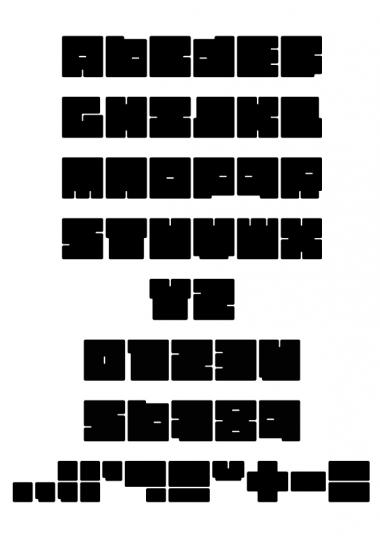
One of the most beautiful blocky fonts with rounded corners I have seen. And the symbols are simply awsome !
I tend to agree with neurone error: this is the best font of this kind we've seen around. It looks well thought out, very consistent, and legible. Fritz the Fat: I like the alliteration. 10/10
Fritz is something. nice minimal and effective design. and fun.
The G is perfect. The second sample delicious.
Love the font - and the title.
Great!!! Coll and fine. You'd want to create the lower case, please?
@elmoyenique: I'm sorry, but I'm afraid Fritz will remain a unicase font. I can't picture any satisfying different design for letters such as U, V or X, except making them smaller, what you can do with almost every software.
nice one
big boi font